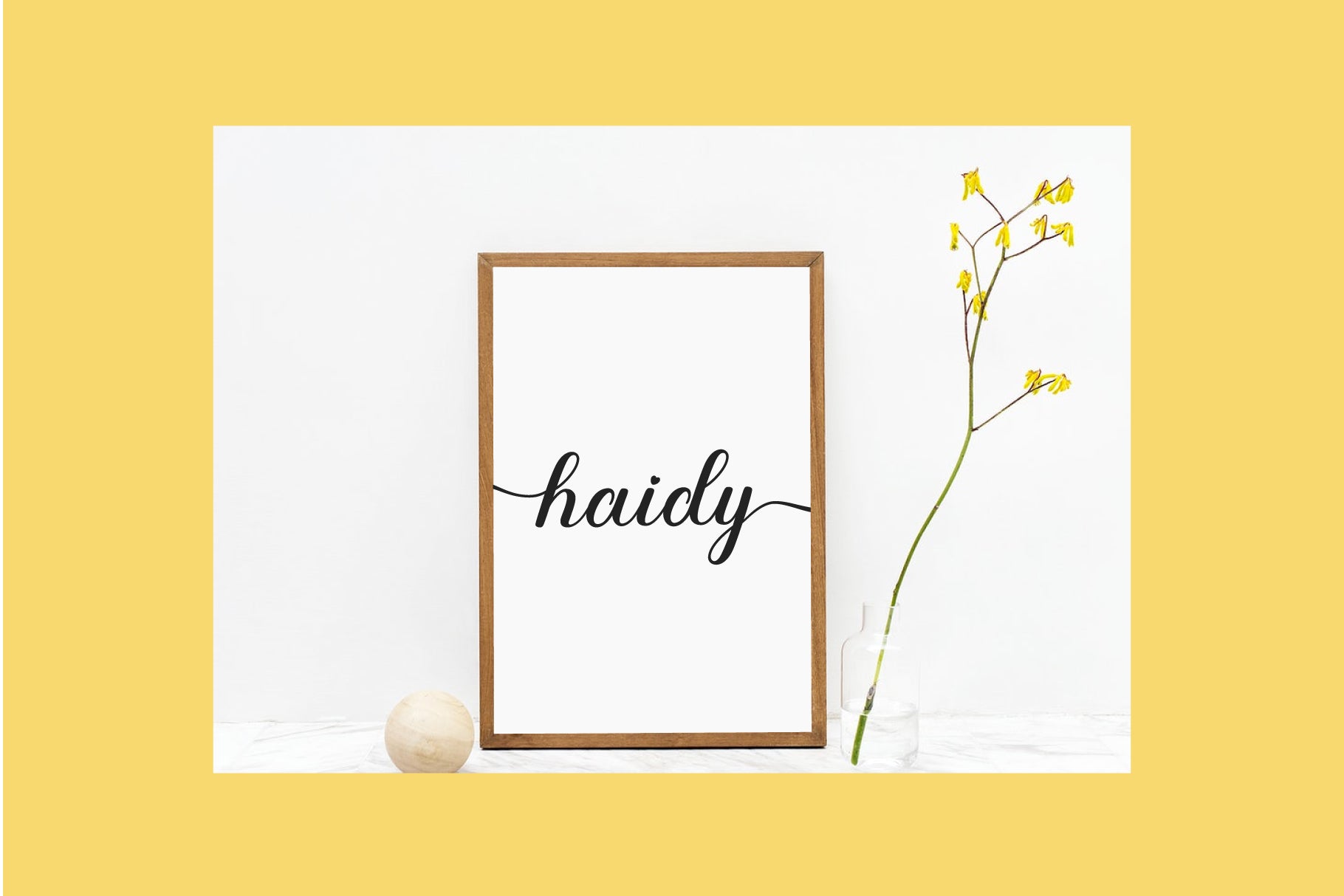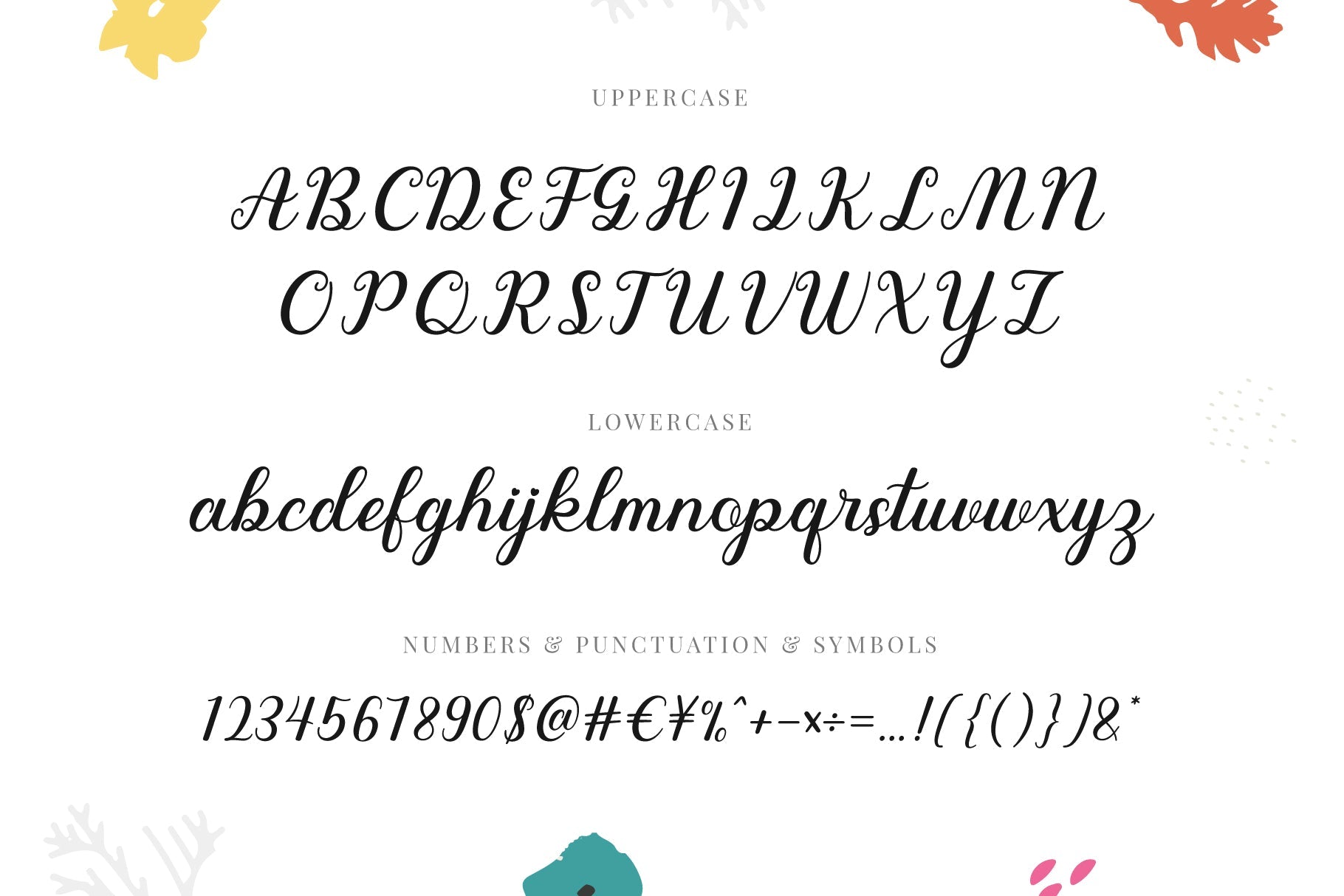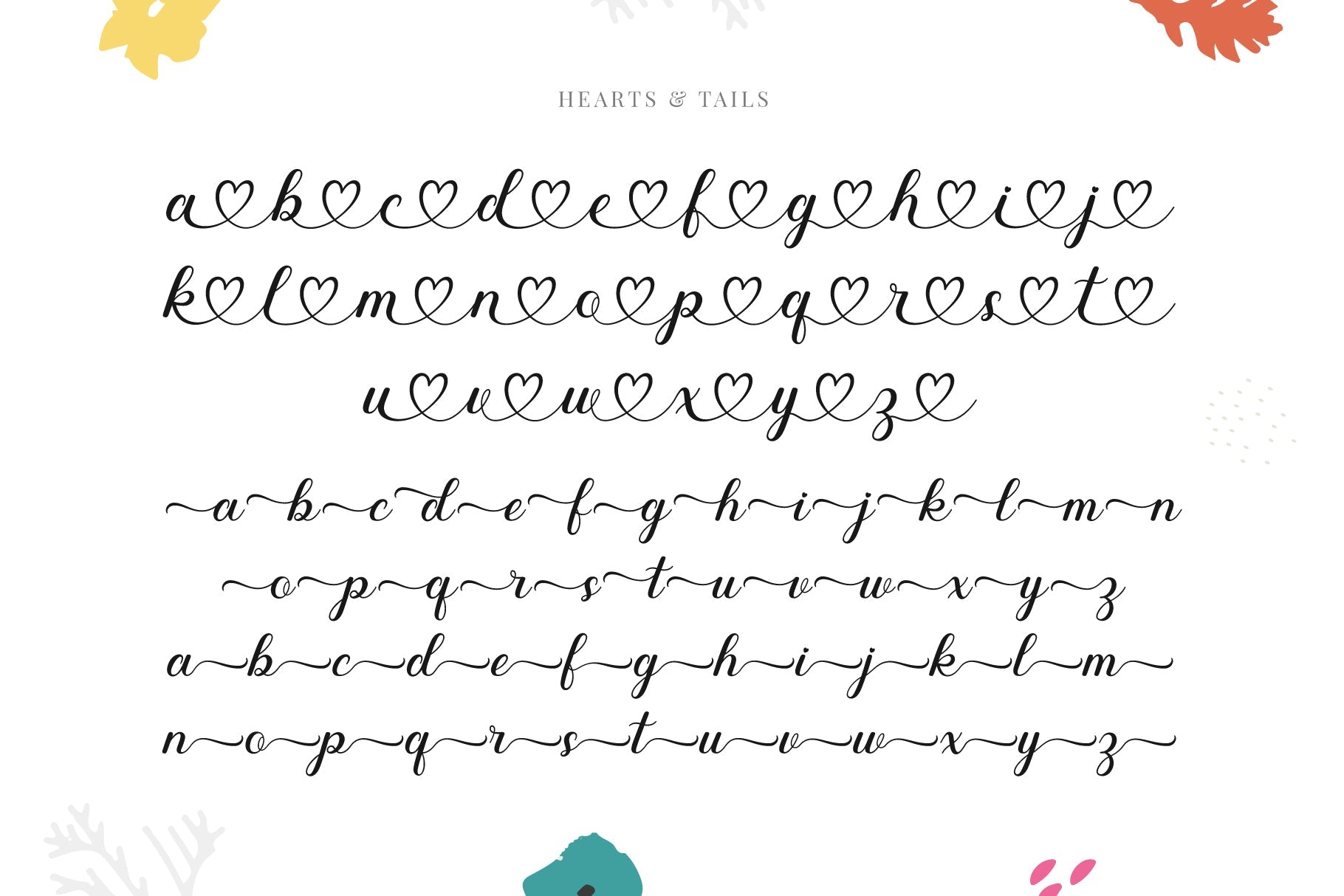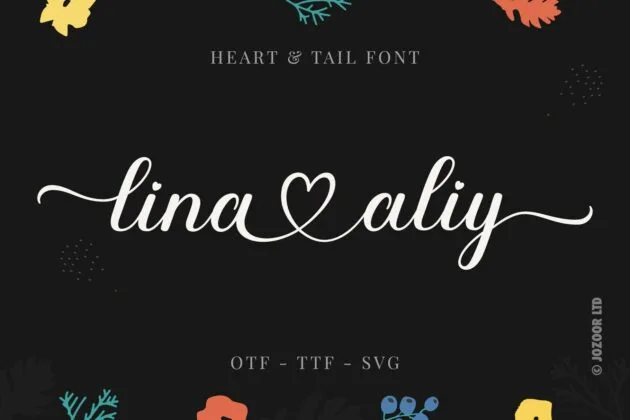
About Habiby – Lovely Heart Script Font
Habiby is a lovely heart script font for wedding invitations, save the date cards, fine art papery, feminine branding, personal gift cards other romantic projects. Font Features: Beginning swashes (tails). Ending swashes (tails). Connecting hearts. You will get: OTF Font File. TTF Font File. WOFF/WOFF2 Webfont. SVG File. User’s Guide PDF file. Hope you enjoy, and happy designing 🙂 ♥ JOZOOR